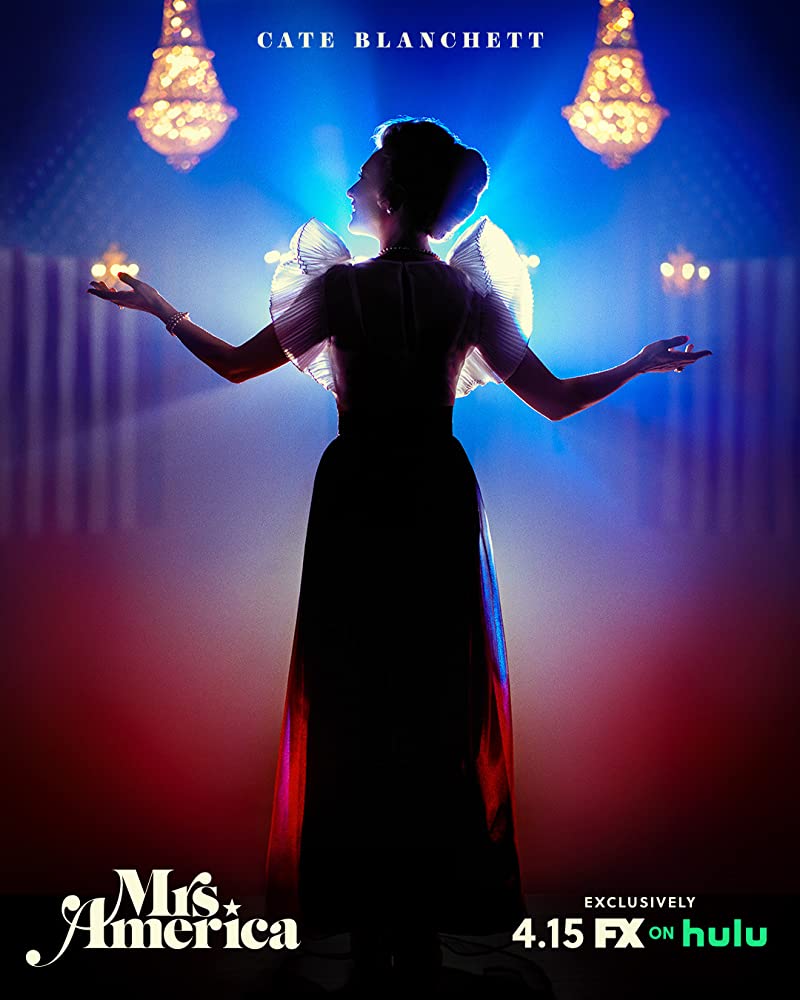
Mrs. America (TV series) Font
Fonts in UseMrs. America is a historical drama TV series that premiered in 2020. It explores the cultural and political landscape of the 1970s feminist movement in the United States, with a focus on the battle over the Equal Rights Amendment (ERA).
The TV series title is written in Cabernet font, designed by Jason Anthony Walcott. Its OpenType features offer decorative options for letters M, A, and r with swashes and stylistic alternates. The "i" is replaced by a star, also serving as the period after "Mrs." Cabernet is a single-weight font with an italic.